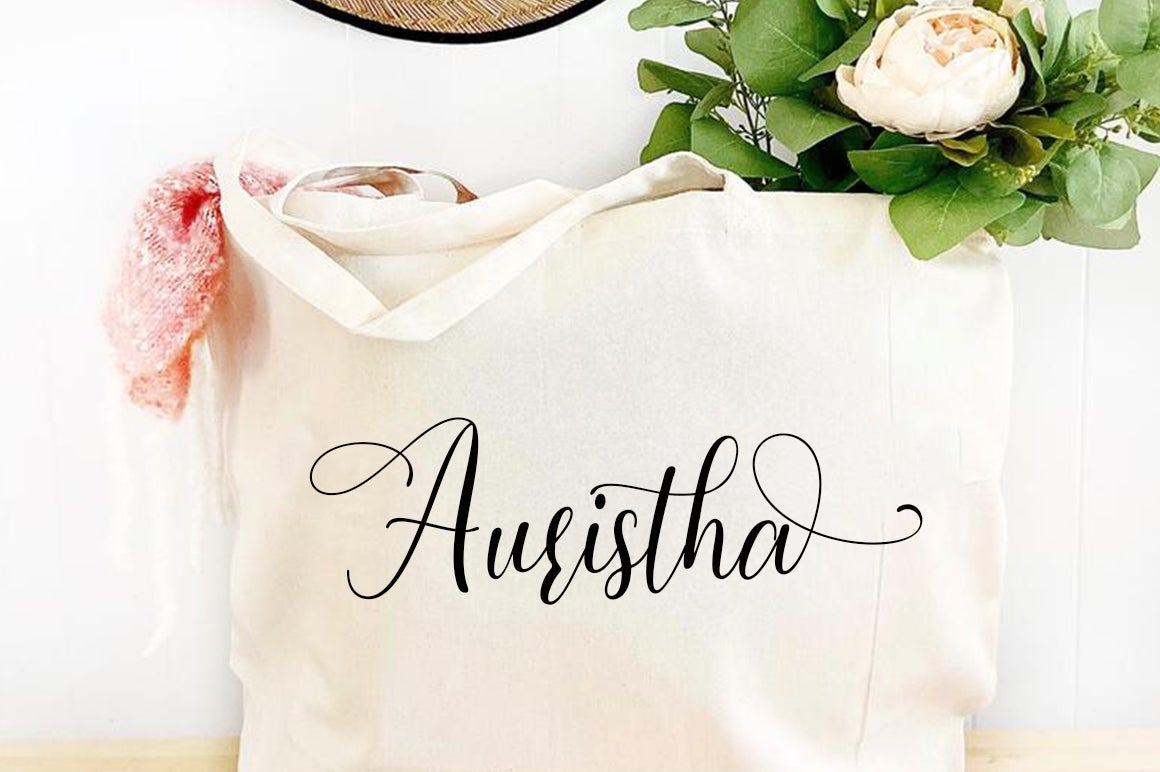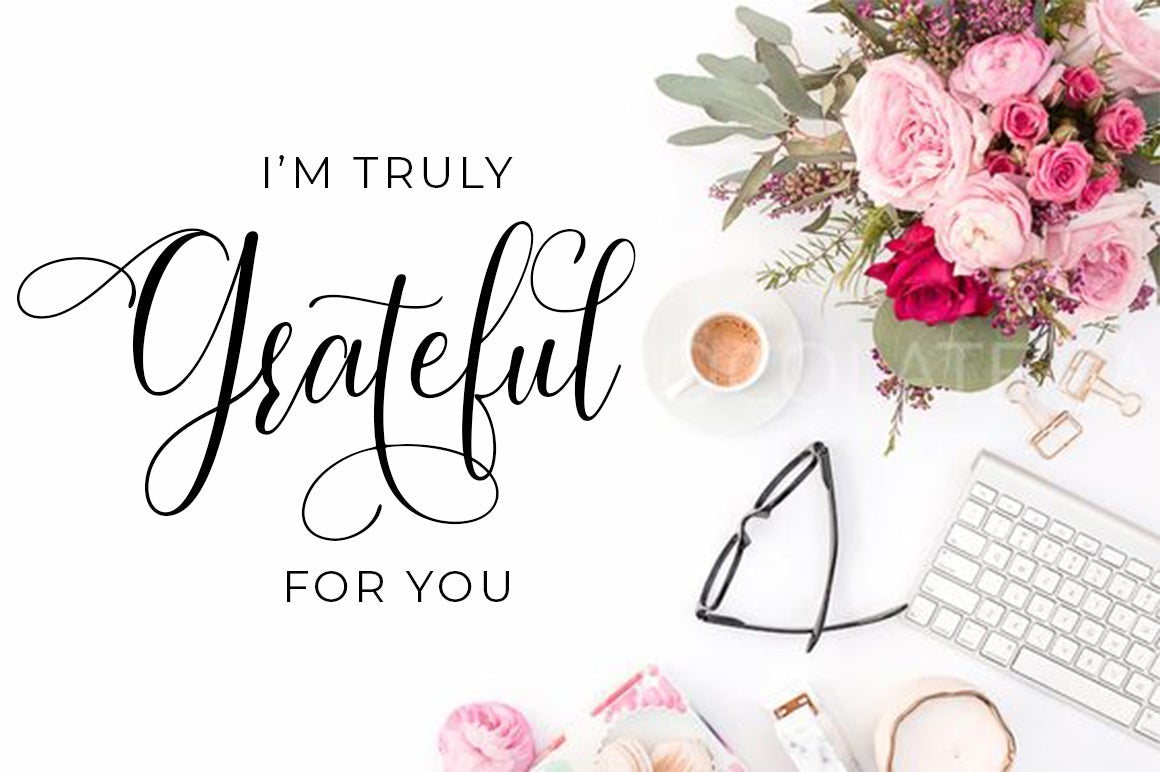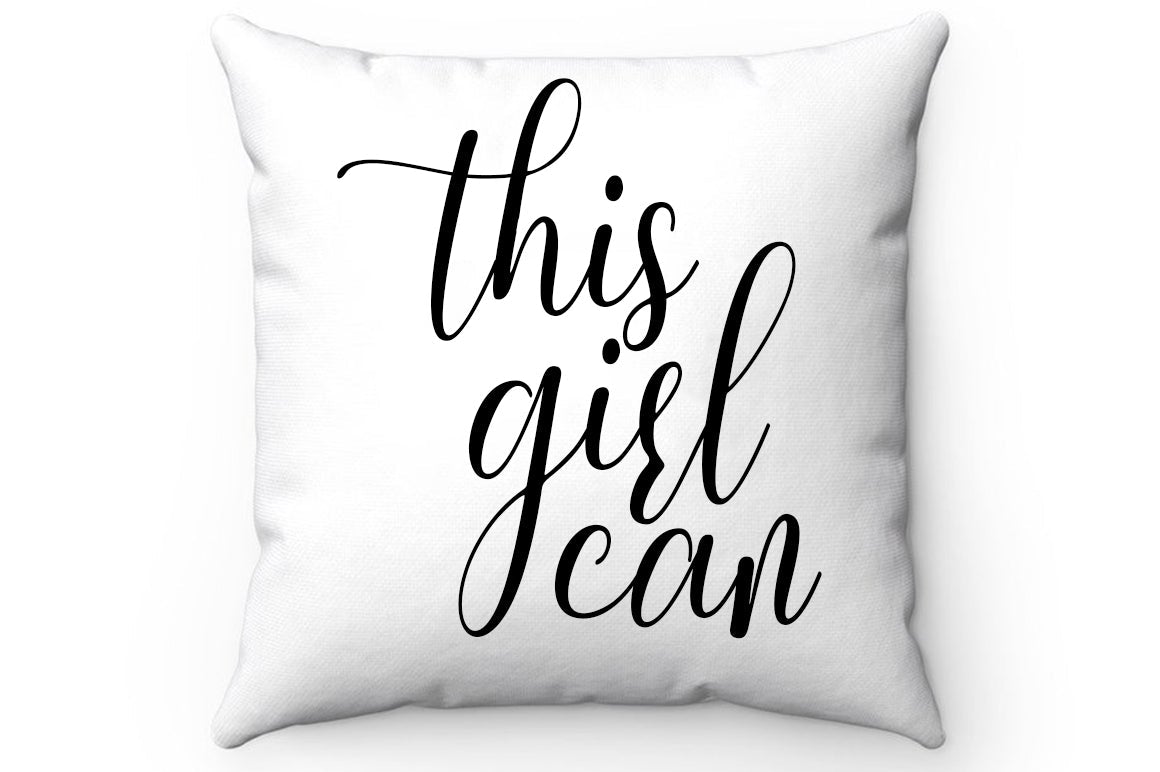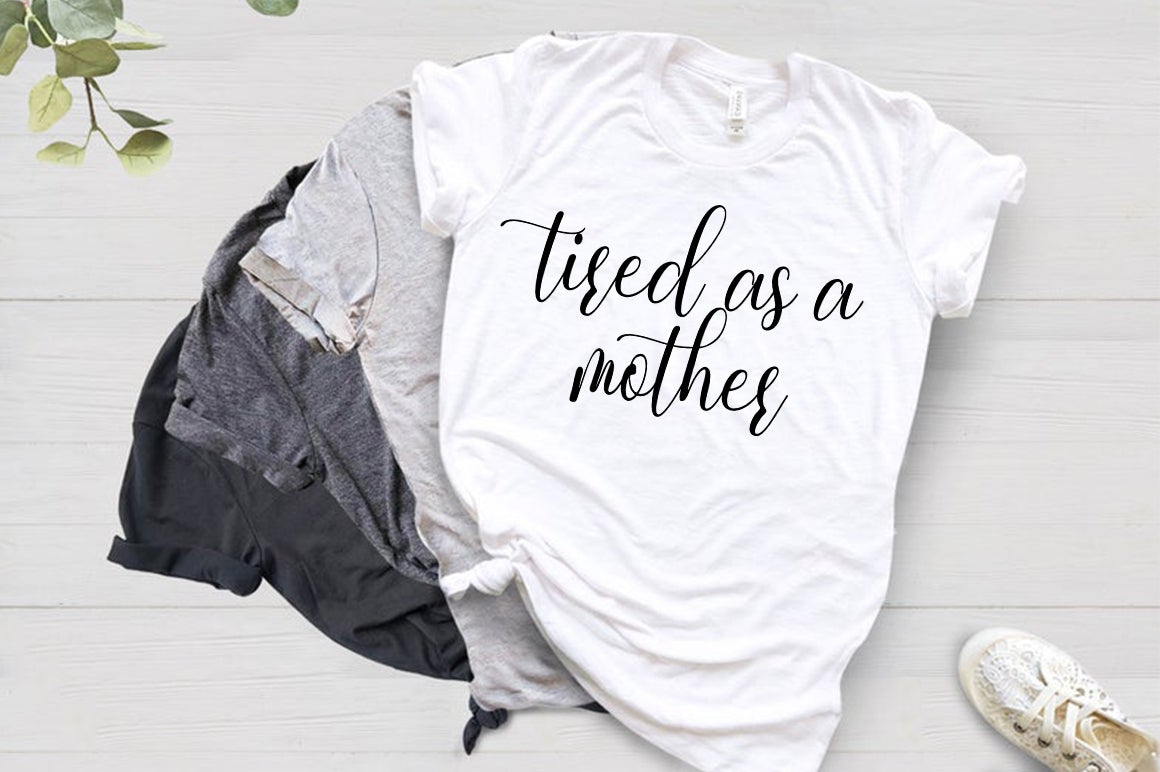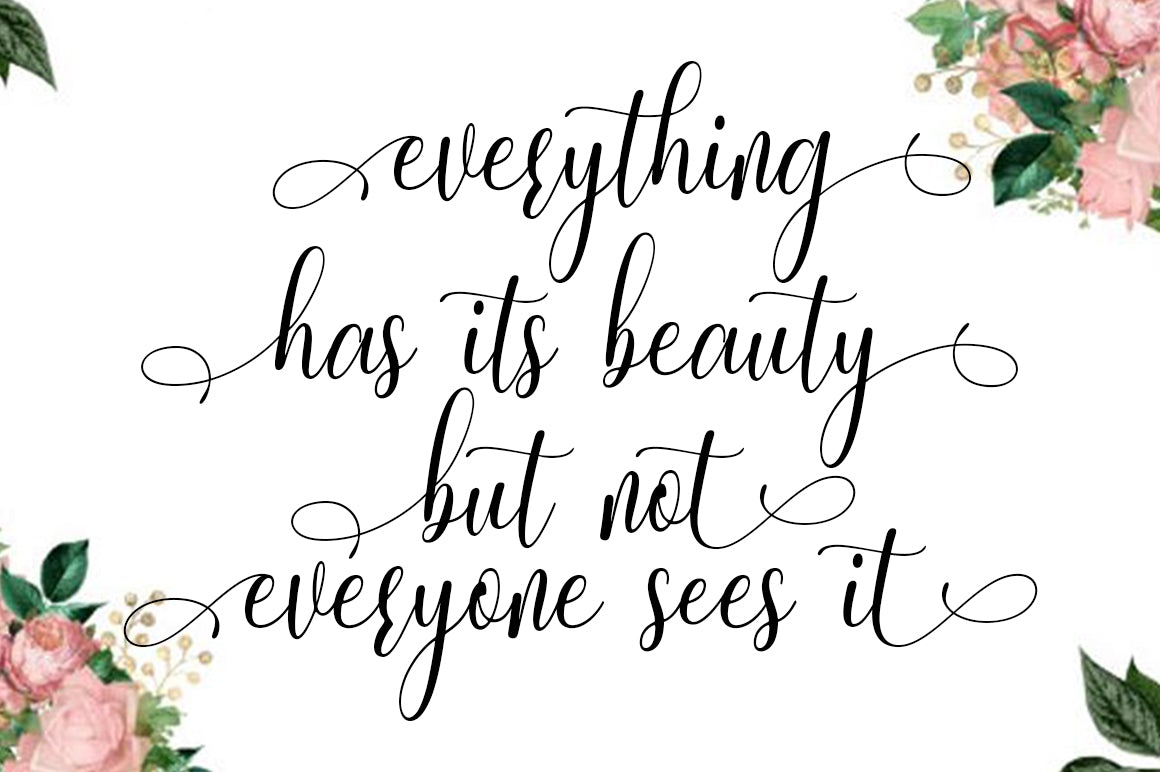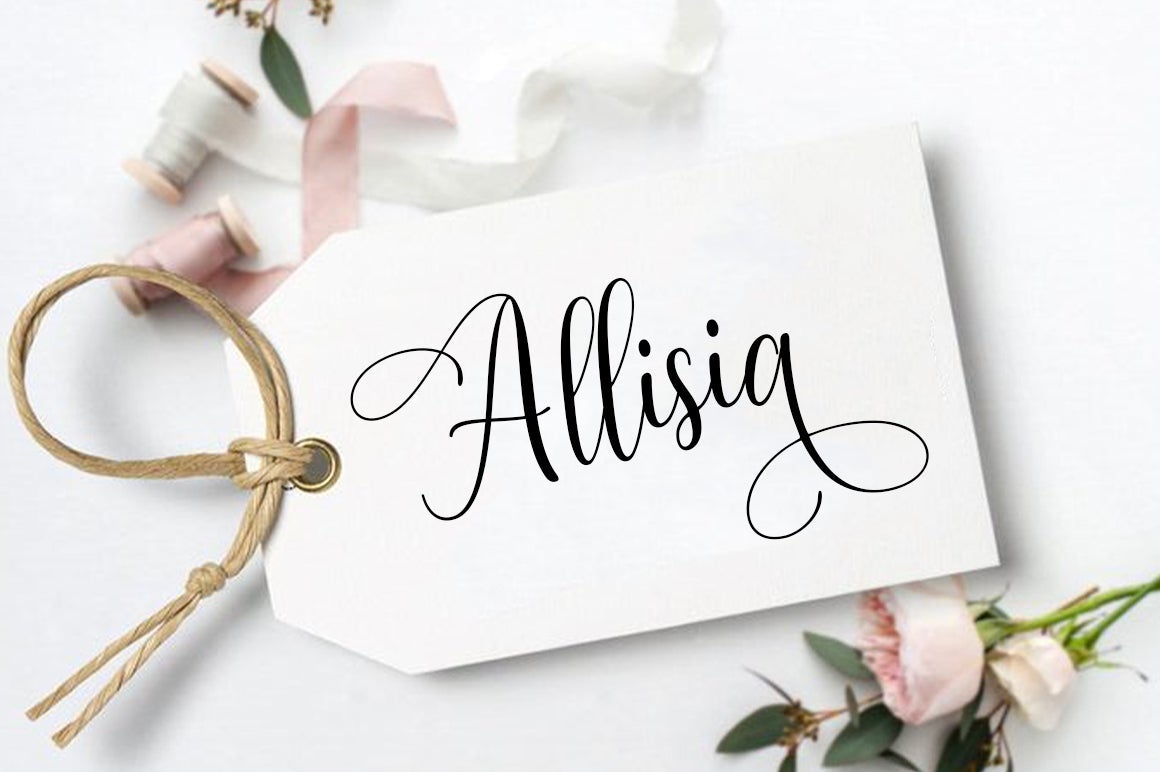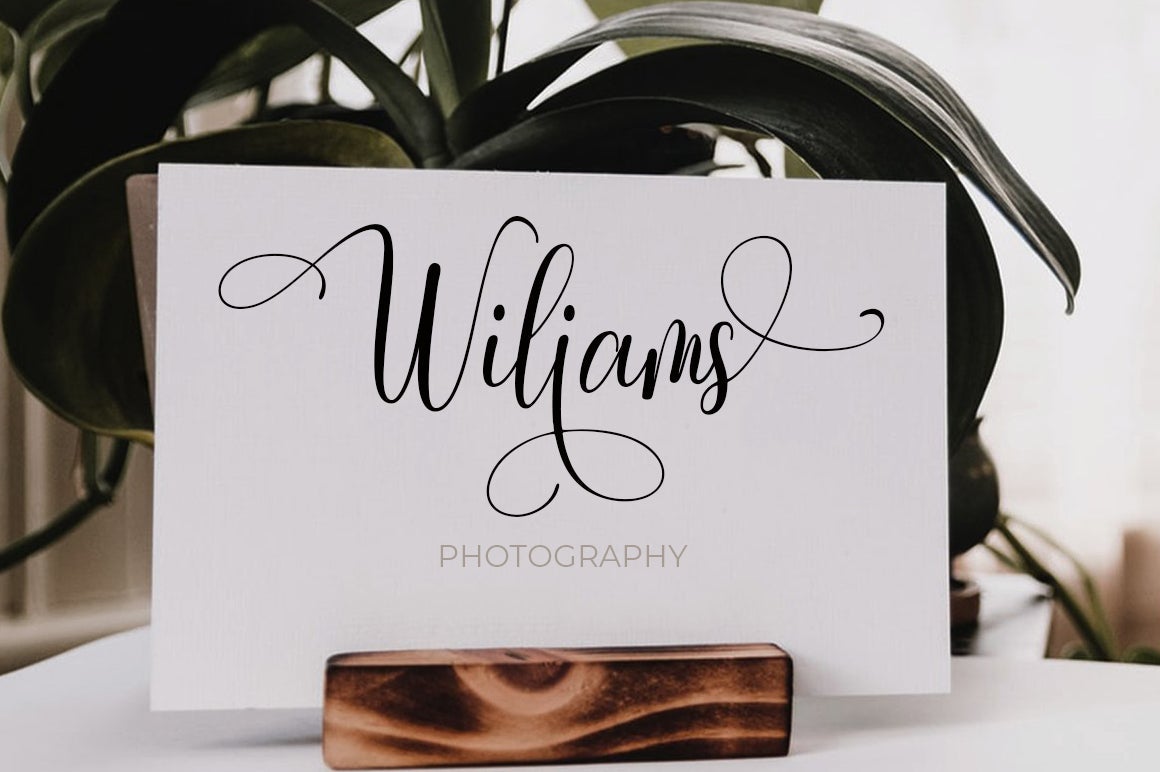
Mastura
About Mastura
Mastura feels equally charming and elegant. It looks stunning on wedding invitations, thank you cards, quotes, greeting cards, logos, business cards and every other design which needs a handwritten touch. This font is PUA encoded which means you can access all of the glyphs and swashes with ease!